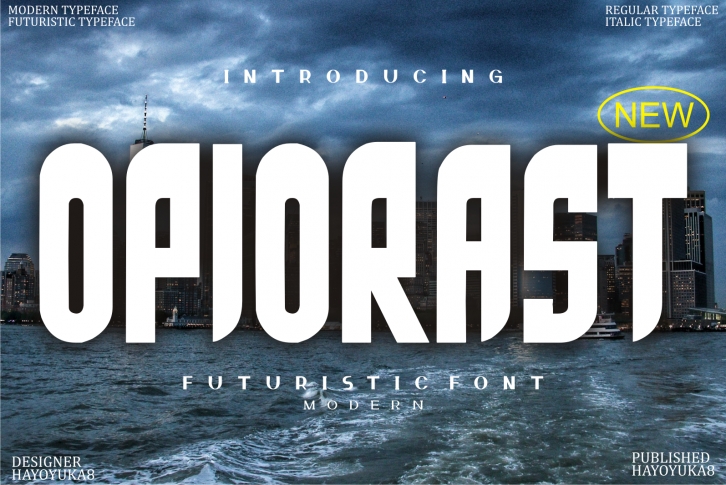
Opiorast is an interesting and modern display font, capable of taking any item out of the ordinary! Use it for covers, posters, banners, or other bold and wild creative ideas.